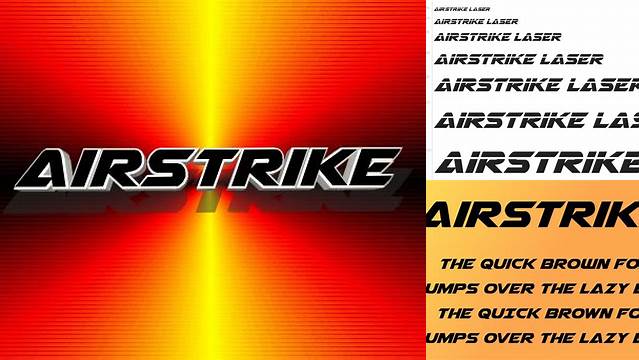
Airstrike Font: Your Guide To Free, Bold Typography
Hey guys! Let's dive into the world of fonts, shall we? Today, we're going to take a closer look at the Airstrike font, a fantastic choice if you're looking for something bold, impactful, and free! This font has gained popularity for its strong presence and versatility, making it a go-to for various design projects. Whether you're a seasoned designer, a budding enthusiast, or just someone looking to spice up your documents, understanding the Airstrike font can open up a world of creative possibilities. So, buckle up, and let's explore everything about this awesome font. We will discuss everything you need to know about the Airstrike Regular Free Font, from its design characteristics and best uses to how you can easily download and implement it into your projects. This guide is crafted to be your go-to resource, ensuring you have all the information needed to make the most of this powerful typography asset. Ready to take flight with the Airstrike font? Let's get started!
Decoding the Airstrike Font: What Makes It Special?
Alright, let's get down to the nitty-gritty. What exactly is the Airstrike font, and what makes it so special? At its core, Airstrike is a display font known for its bold, impactful design. It typically features thick strokes, sharp angles, and a strong visual presence that immediately grabs attention. The font often conveys a sense of energy, power, and modernity, making it perfect for projects that demand a strong visual statement. Its design characteristics usually include a geometric structure with a clear, legible form, ensuring that readability isn't compromised despite its boldness. The creators of Airstrike have skillfully balanced aesthetics with functionality, creating a font that is both visually striking and practical for various applications.
One of the main reasons people love Airstrike is its versatility. While it excels in headings and titles, where its impact can be fully realized, it's also surprisingly adaptable for other uses. You can use it for logos, posters, social media graphics, and even certain body text applications. The key is to understand its strengths and limitations and to use it strategically to enhance your design. It's this adaptability that truly sets Airstrike apart, making it a valuable asset in any designer's toolkit. Whether you're working on a website, a print ad, or even a presentation, the Airstrike font can help you create a memorable visual experience. This flexibility makes it an excellent choice for designers who want to create eye-catching designs without sacrificing legibility. Remember, the right font can make all the difference in conveying your message and capturing your audience's attention.
Furthermore, the fact that the Airstrike font is readily available for free is a massive advantage. Accessibility is key, and the Airstrike font provides this without compromising quality. Many high-quality fonts come with a hefty price tag, but the Airstrike font lets you achieve a professional look without breaking the bank. This is especially beneficial for startups, small businesses, or individuals working on personal projects. Not having to worry about licensing fees or budget constraints allows more creative freedom. The availability of a free, high-quality font like Airstrike levels the playing field, ensuring that everyone, regardless of their budget, can access top-tier design resources. Now, isn't that amazing? And because it's free, you can experiment with it, try it out on different projects, and see how it enhances your work. It's a win-win for everyone involved.
Where to Use the Airstrike Font: Best Applications
Okay, now that we know what Airstrike is all about, let's talk about where it shines. The Airstrike Regular Free Font is a fantastic choice for anything that needs a punchy, attention-grabbing look. First of all, headings and titles are where Airstrike really comes to life. Its bold and commanding presence makes it perfect for headlines, subheadings, and any text that needs to stand out. Think of it as the visual equivalent of a shout – it's designed to grab the reader's eye immediately. Next, when it comes to logos, the Airstrike font can create a strong, memorable brand identity. Its modern and dynamic style conveys confidence and strength. It's especially well-suited for brands that want to project a sense of innovation or assertiveness. You can pair it with a simple icon or graphic to create a cohesive and impactful logo.
Another great use case is in posters and flyers. Airstrike's strong visual impact is ideal for promotional materials. Whether you're advertising an event, promoting a product, or simply conveying a message, the font's boldness will ensure your text gets noticed. Consider using it for key information like event dates, special offers, or call-to-actions. The clean lines and readability of the Airstrike font make it easy to create visually appealing posters. So next time you're designing a promotional campaign, give Airstrike a try, and see how much it can elevate your designs.
Social media graphics are another great place where the Airstrike font can be used. In today's digital world, social media is a key platform for promoting your brand or message. Using a font like Airstrike can help your content stand out in a crowded feed. Whether you're creating graphics for Instagram, Facebook, or Twitter, the font's strong presence will ensure your message is clear and engaging. This is a great way to get people to notice your content. This makes your posts more shareable and memorable, driving engagement and brand recognition.
Finally, while it's not always the best choice for long blocks of body text, Airstrike can be effective in short bursts of text, especially when you want to make a statement. For example, you could use it for key phrases, quotes, or short paragraphs where you want to emphasize a specific point. The key is to use it strategically and combine it with other fonts that are more suitable for body text. This way, you can maintain visual interest without sacrificing readability. Remember, a good design is about balance and knowing when and where to use specific fonts. So, consider the Airstrike font when creating any visual content, you might be surprised at its versatility.
So, go ahead, download the Airstrike font and start experimenting! Play with its different weights and styles, pair it with other fonts, and see how it can transform your designs. It's a fantastic font, so unleash your creativity and take your designs to the next level. Embrace the boldness and let your creativity shine! Don't forget to always consider the context of your design and choose fonts that enhance your message and engage your audience. Happy designing, and I hope this guide helps you in your creative journey!